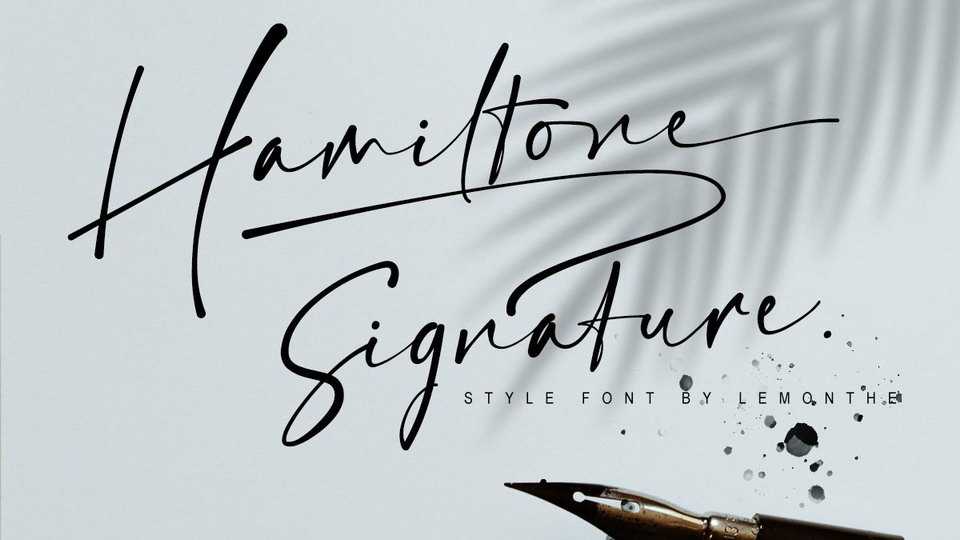
Download Hamiltone font, a luxury signature style handwritten typeface with a very natural and smooth look. Hamiltone is the perfect font for personal branding, wedding invitations, photography, social media posts, greeting cards and more.
Designer: Lemonthe